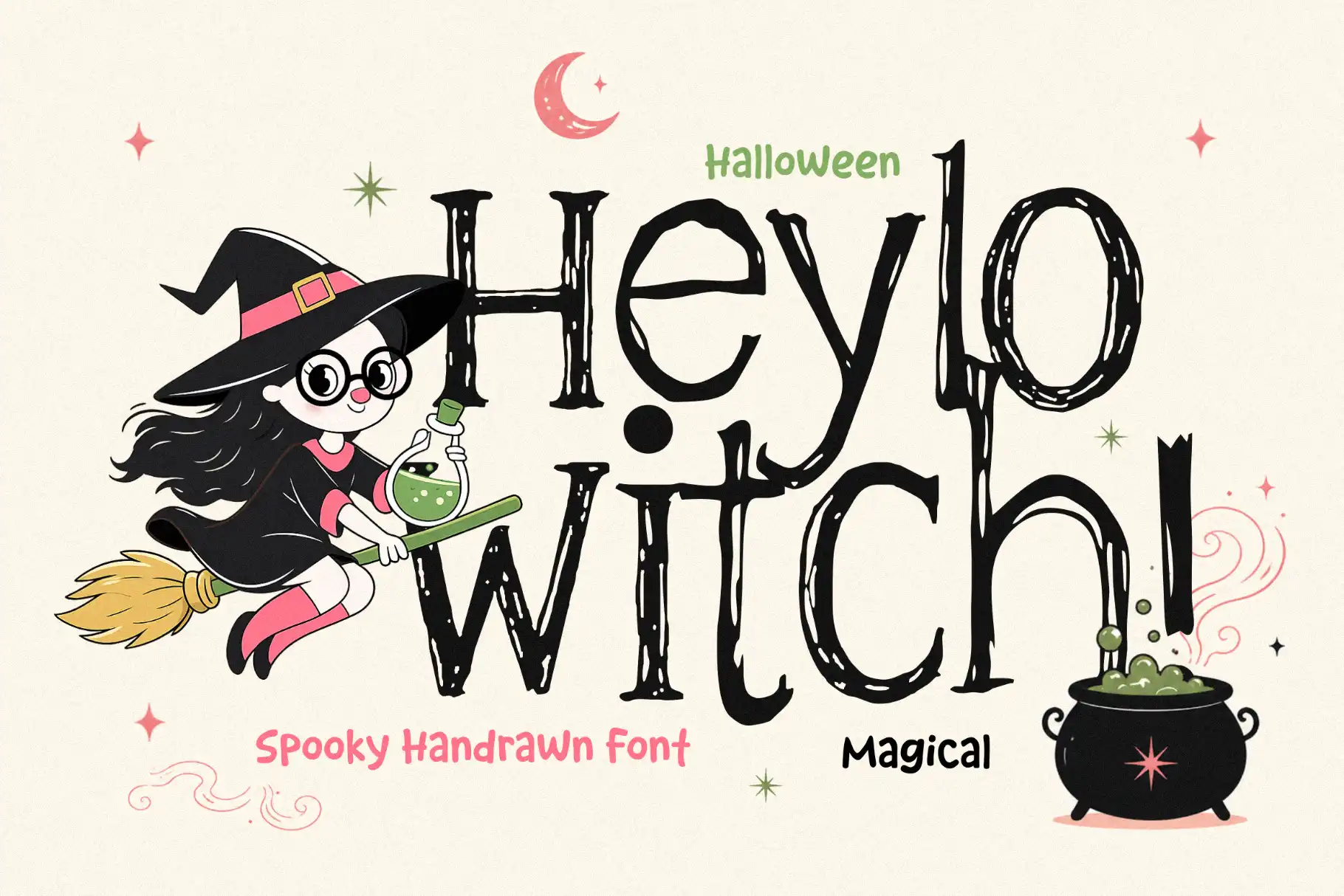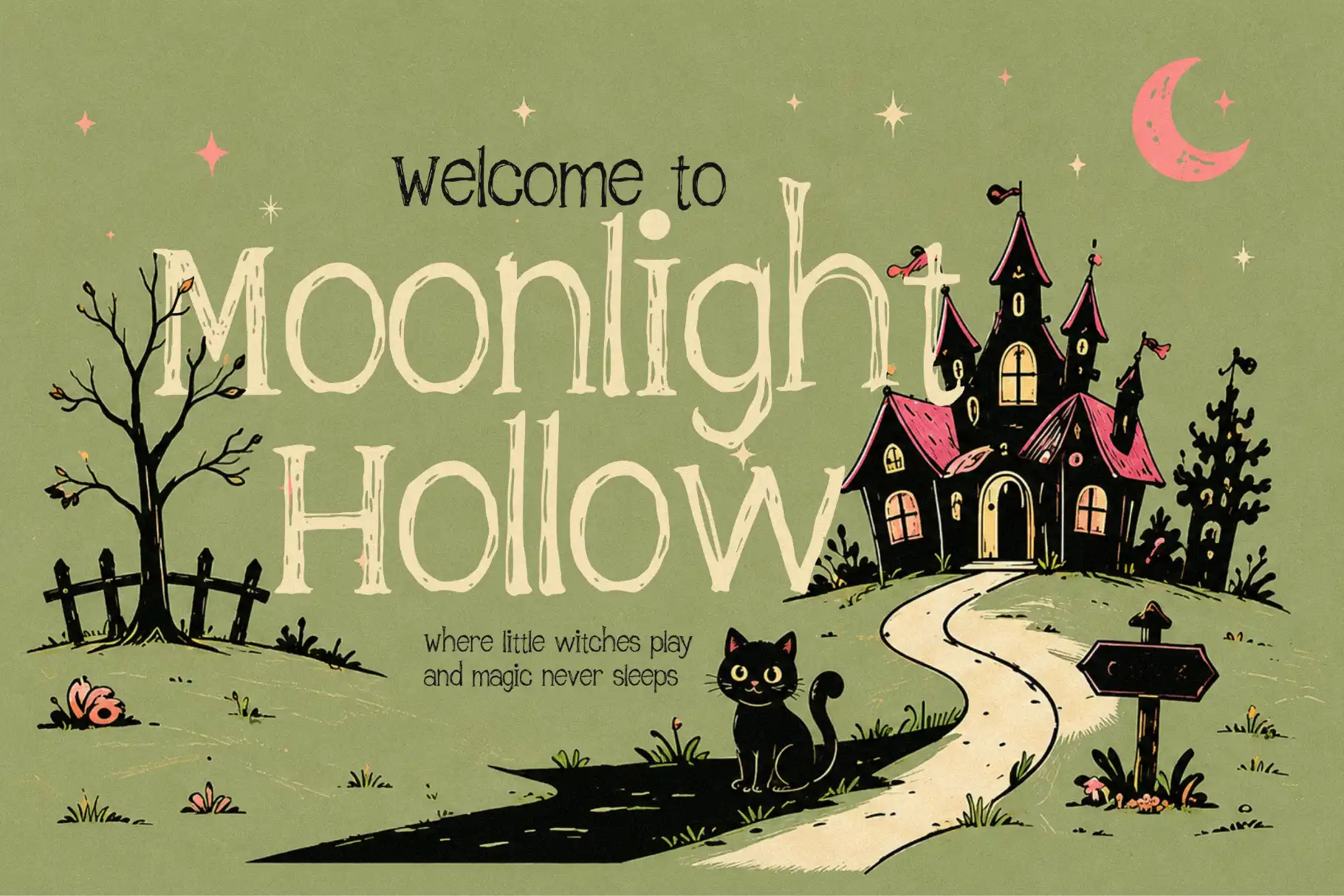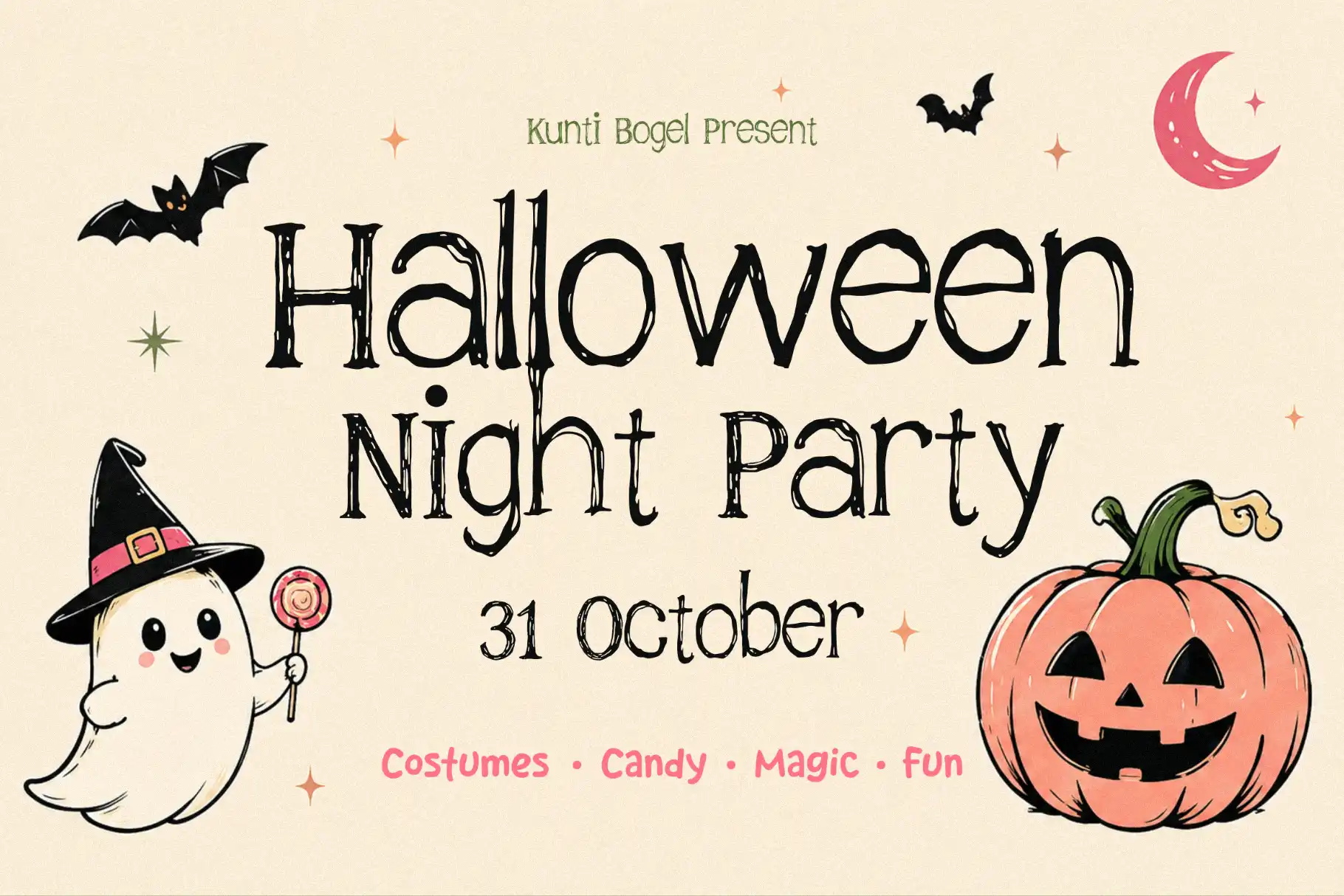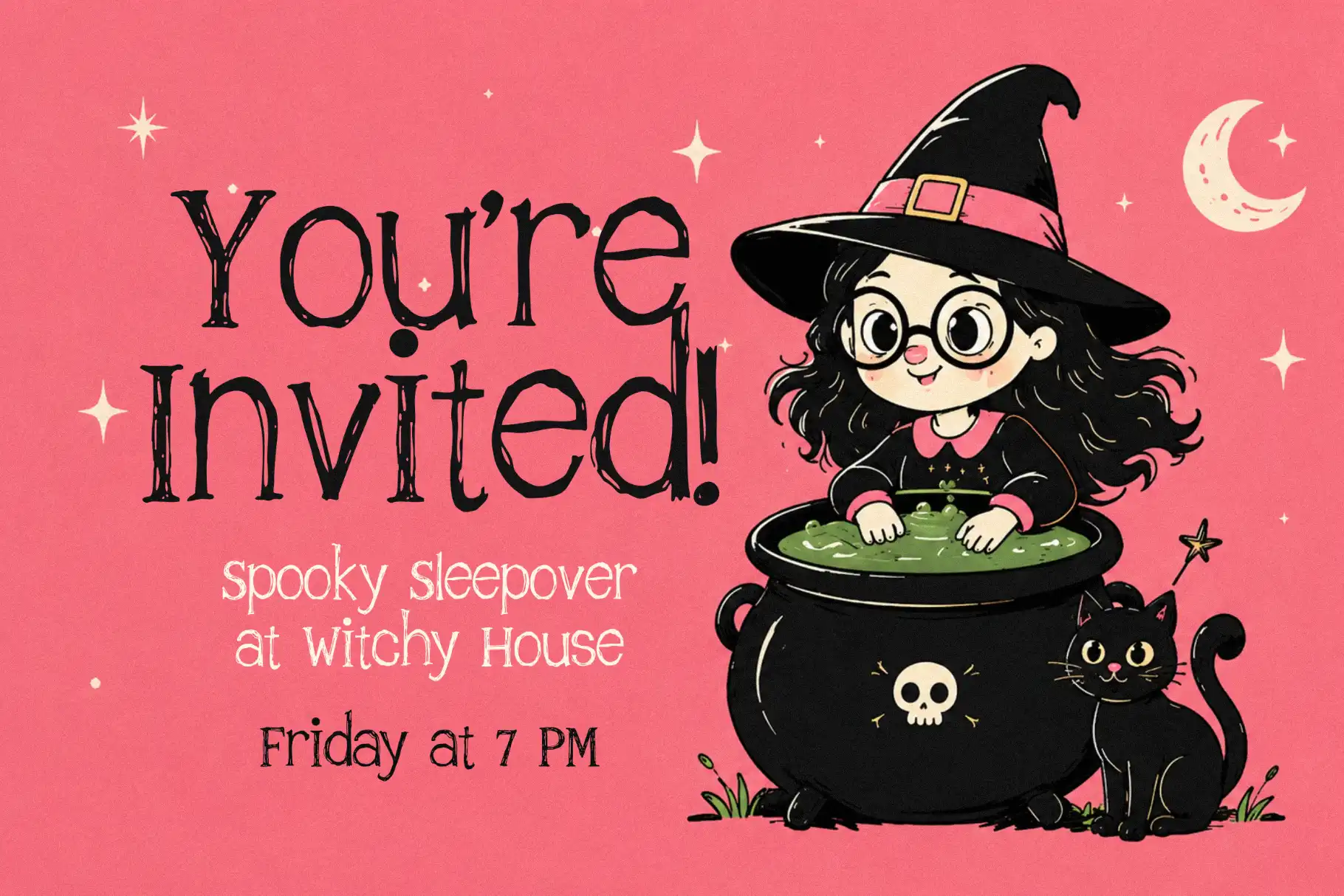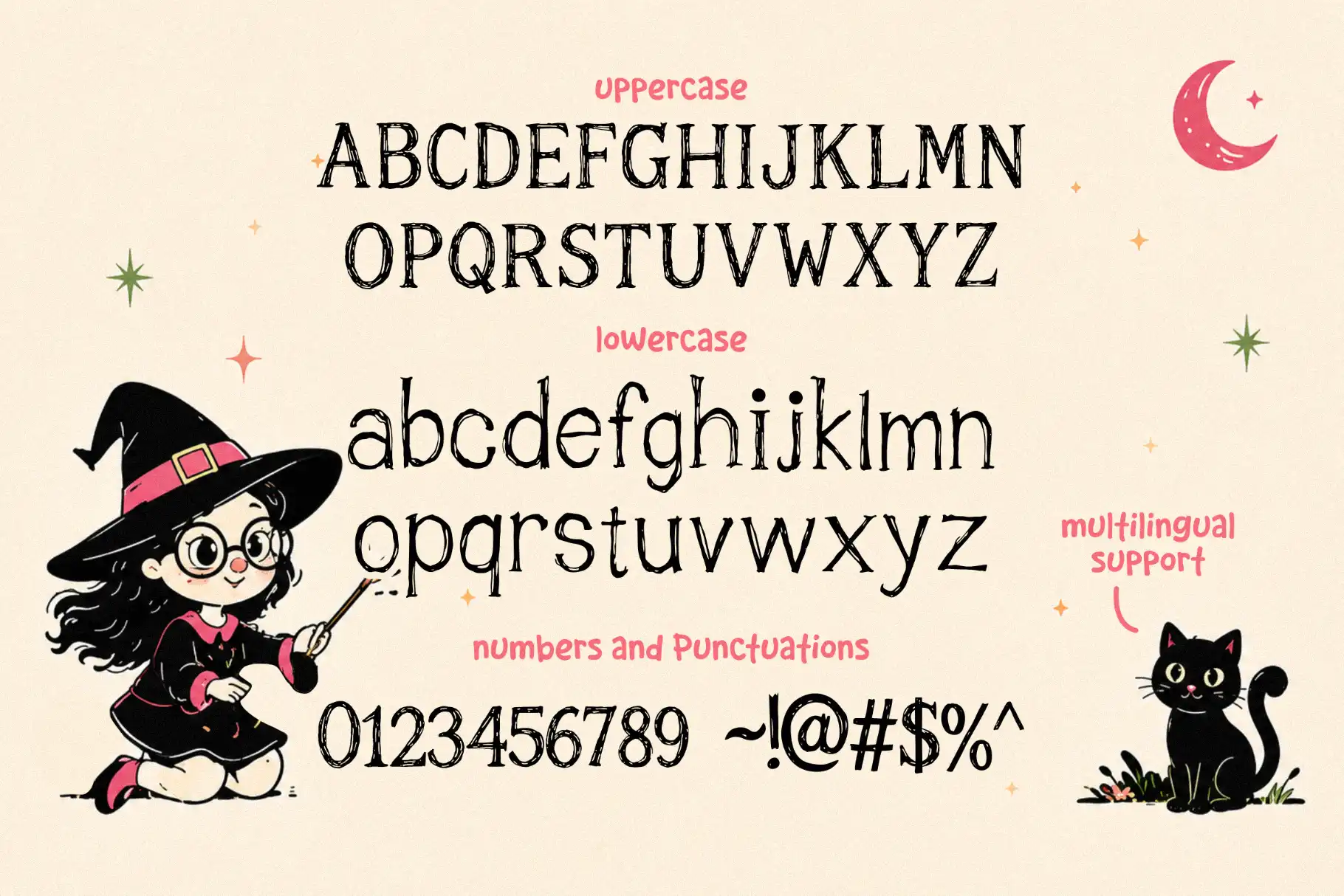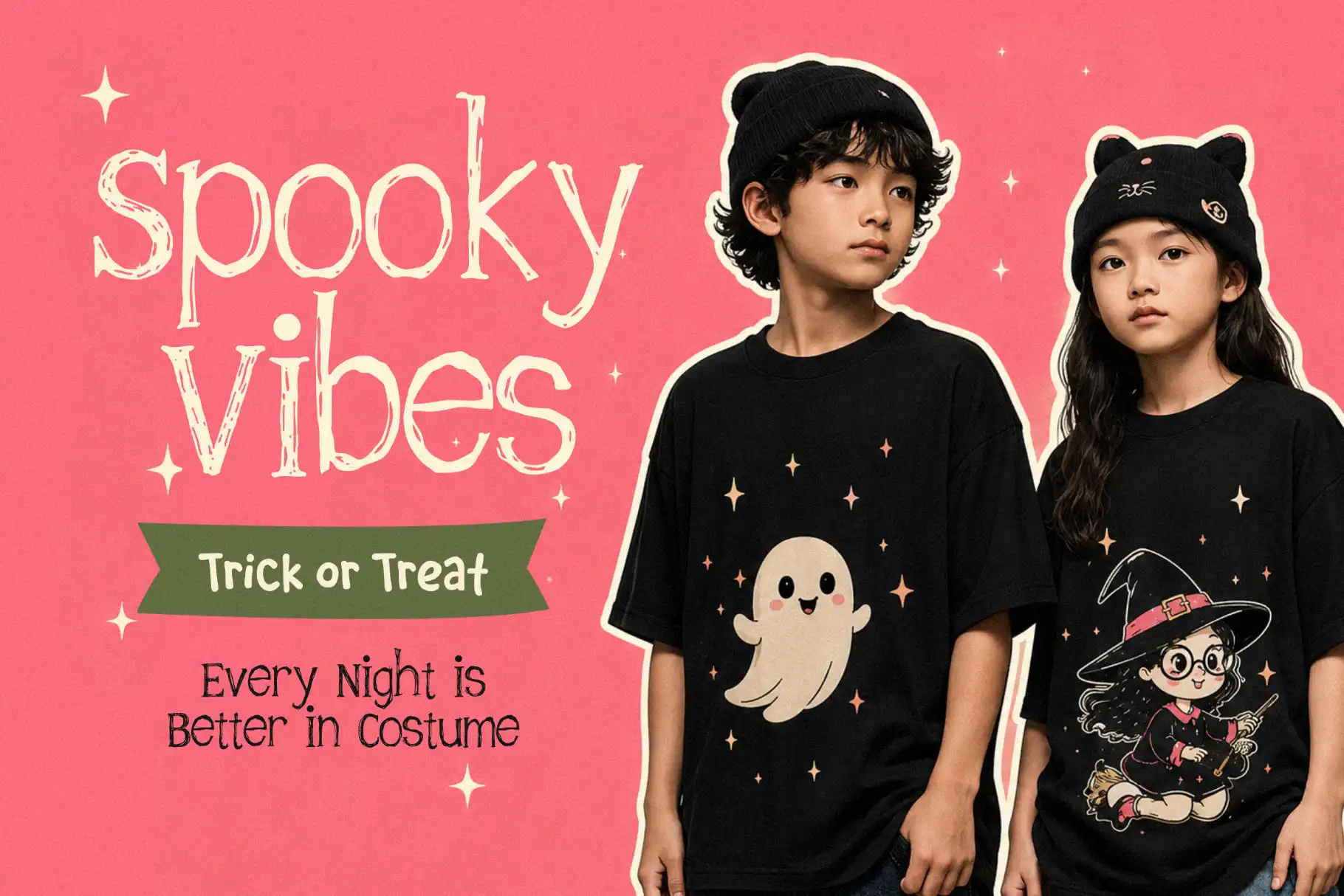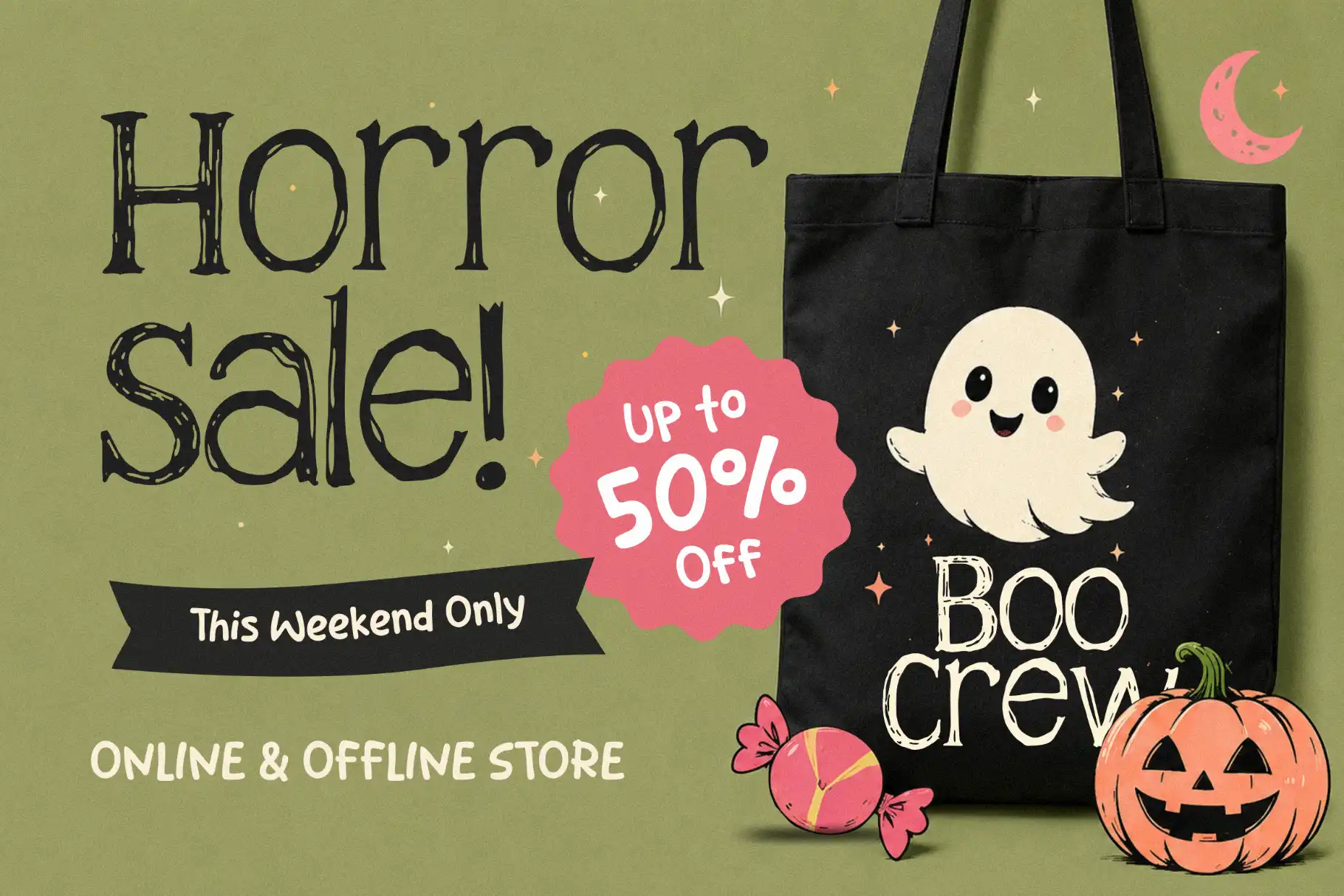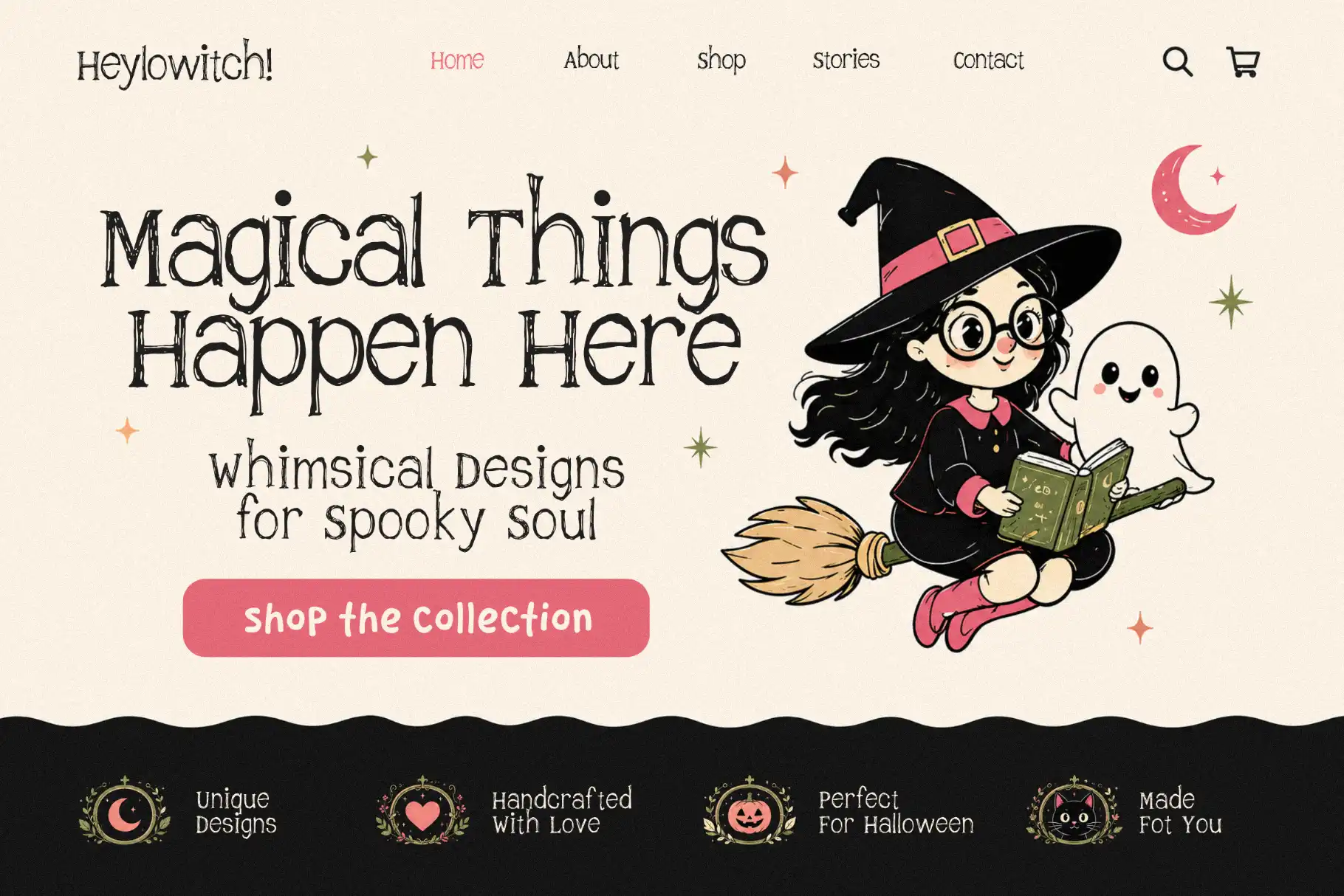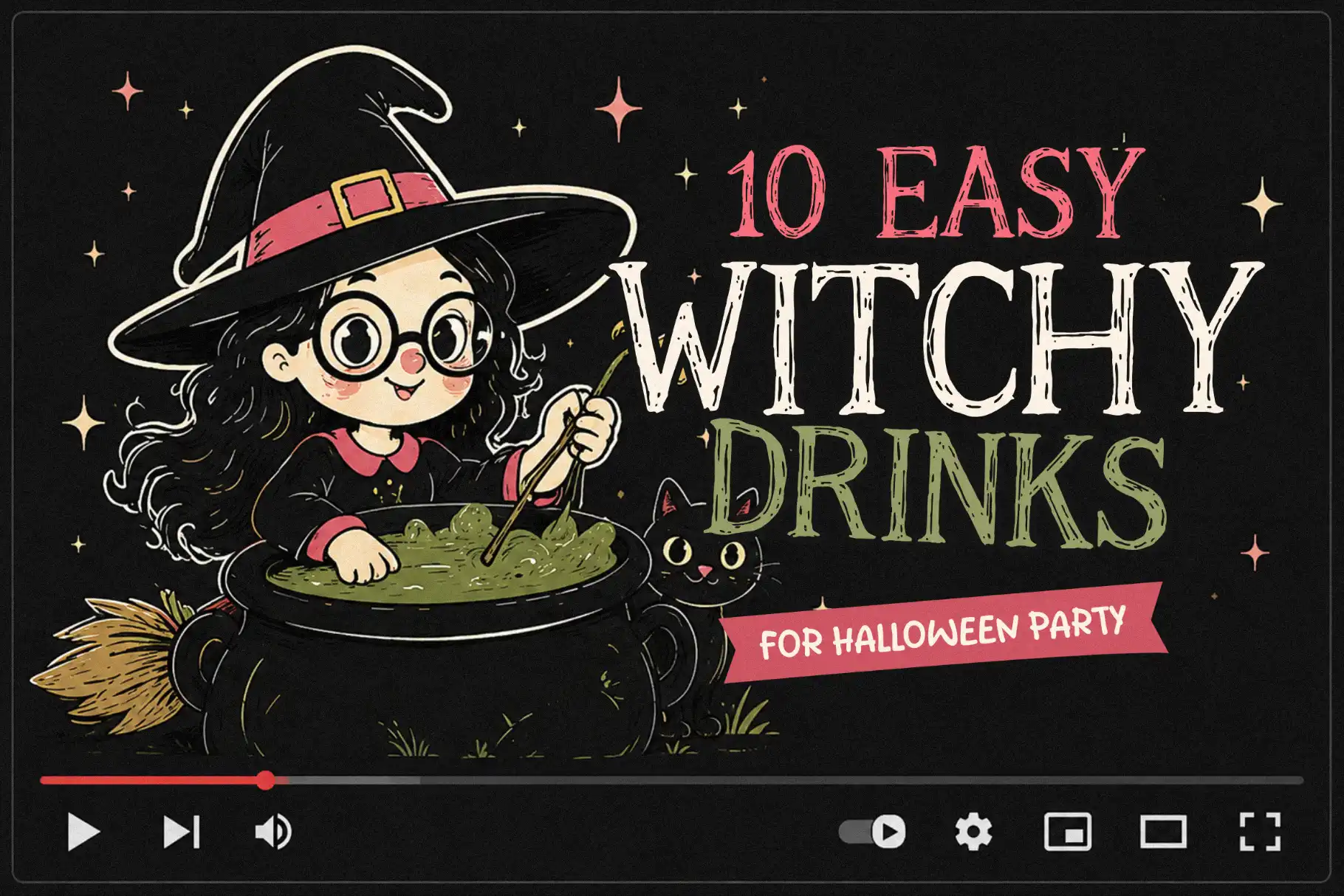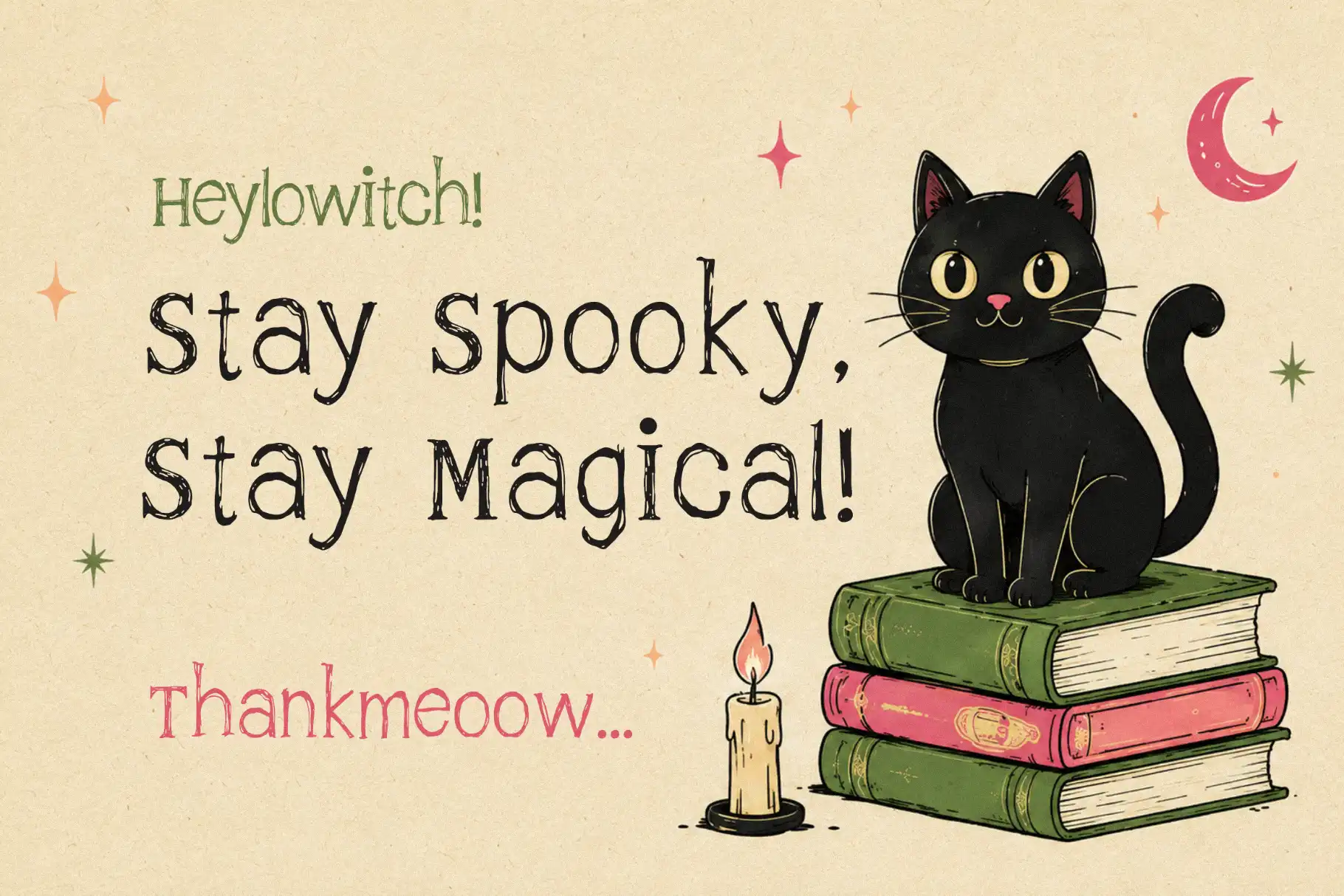
Heylowitch
Meet Heylowitch, a Playful Halloween Font with Hand-Drawn Personality
Bring a cheerful dose of mystery to your seasonal artwork with Heylowitch, a playful Halloween font created for spooky designs that still feel fun, friendly, and expressive. Its hand-drawn personality gives every word a lively appearance, helping your typography feel less formal and more connected to the imaginative spirit of Halloween.
Heylowitch is a practical choice for designers who want to move beyond predictable horror typography. Instead of relying only on aggressive shapes or extremely dark visuals, this font introduces a playful mood that works beautifully for family-friendly Halloween campaigns, creative merchandise, party graphics, social media content, and seasonal product packaging.
The font includes uppercase and lowercase characters, allowing you to create varied compositions with natural visual rhythm. Multilingual support is also included, helping designers work with a broader range of words and audiences.
Heylowitch combines a spooky theme with the warmth and spontaneity of hand-drawn lettering. The result is a typeface that feels imaginative rather than overly serious. It can add Halloween character to a design without making the final artwork feel too frightening or visually heavy.
Its playful direction makes it especially suitable for projects aimed at children, families, party guests, online shoppers, and audiences who enjoy the lighter side of Halloween. The hand-drawn appearance can help a composition feel more personal, artistic, and approachable.
Use Heylowitch when your design needs to communicate ideas such as playful magic, friendly witches, trick-or-treat adventures, costume parties, haunted fun, pumpkin season, or cheerful supernatural stories.
The font can stand confidently in prominent text, including titles, product names, short phrases, event announcements, and seasonal promotional messages. Pair it with simple illustrations, textured backgrounds, Halloween icons, or a clean supporting typeface to create a balanced visual hierarchy.
Best Use Cases for This Playful Halloween Font
Heylowitch is designed for creative projects that need visible personality. Its seasonal style can help establish a Halloween theme quickly, making it useful for both professional client projects and independent creative products.
Consider using Heylowitch for:
• Halloween party invitations and event announcements
• Trick-or-treat posters and neighborhood signs
• Seasonal product packaging and labels
• Halloween T-shirts, tote bags, stickers, and merchandise
• Social media posts, stories, reels, and promotional graphics
• Children’s Halloween activities and printable worksheets
• Costume party branding and decorative signage
• Haunted-house promotions and seasonal event graphics
• Pumpkin-themed artwork and fall campaign headlines
• Digital products, printable cards, and creative templates
• Website banners, landing-page titles, and seasonal headers
• Book covers, story titles, and playful horror-themed artwork
For merchandise designers and digital product sellers, Heylowitch can give short messages and themed phrases a distinctive visual identity. For branding studios, it can support limited-edition packaging, seasonal campaigns, or Halloween event concepts that need a more human and handcrafted tone.
Key Features
• Playful Halloween-inspired design
• Spooky hand-drawn visual style
• Uppercase characters
• Lowercase characters
• Multilingual support
The available character cases give designers more freedom when building headlines, names, short messages, and layered typographic layouts. You can combine uppercase and lowercase text to introduce contrast while maintaining a consistent Halloween personality throughout the design.
Why Designers Love Heylowitch
Designers often need seasonal fonts that communicate a theme immediately without limiting the project to one narrow visual direction. Heylowitch offers a flexible combination of spooky atmosphere and playful energy, making it easier to create Halloween graphics for different audiences.
Add Heylowitch to your creative toolkit and give your next Halloween project a personality that is spooky enough for the season, yet playful enough to welcome everyone into the fun.